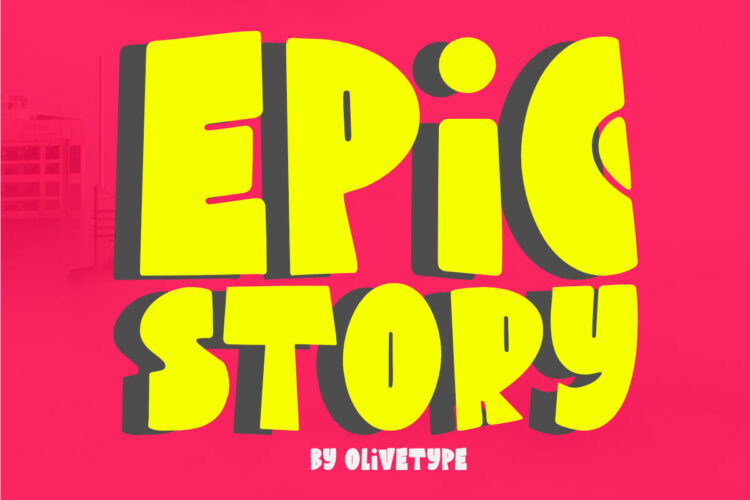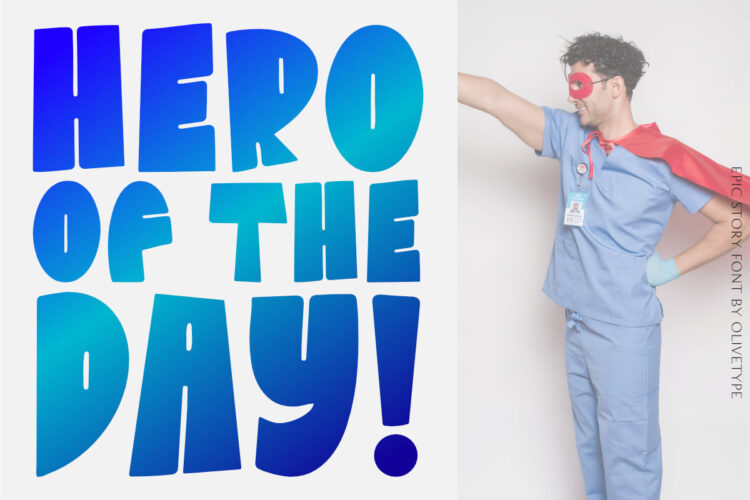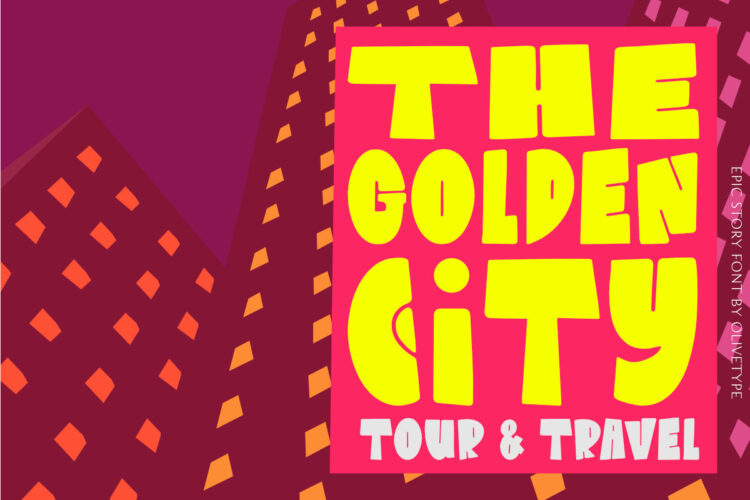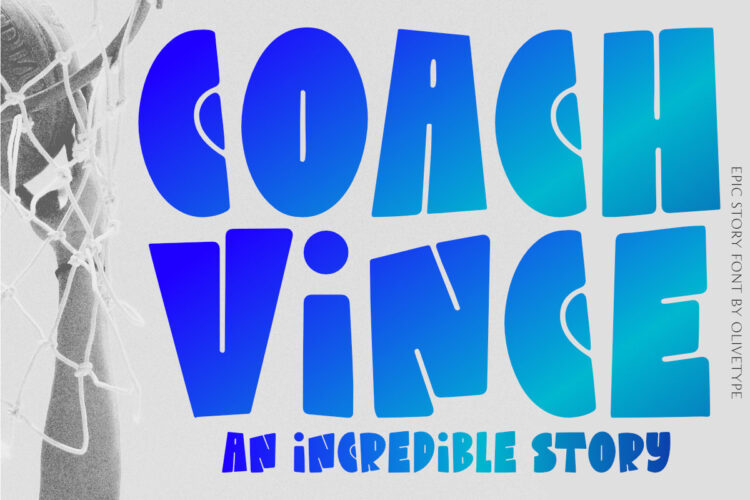
Introducing Epic Story, the perfect typeface for your next big project. This fun, playful font is the right choice for creating bold headlines. With its unique character, Epic Story is sure to make a statement. It’s great for logotypes and branding too. So if you want to add some personality to your next project, look no further than Epic Story.